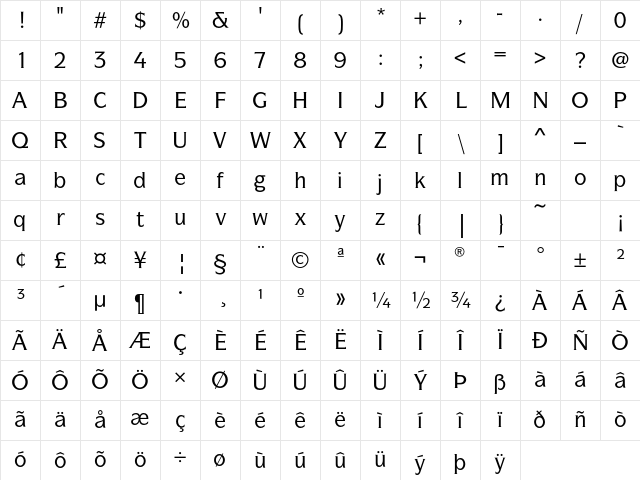
SymbolEF Medium
Design Context for SymbolEF
SymbolEF is a composed and adaptable typeface that performs quietly and consistently across a wide range of design contexts.